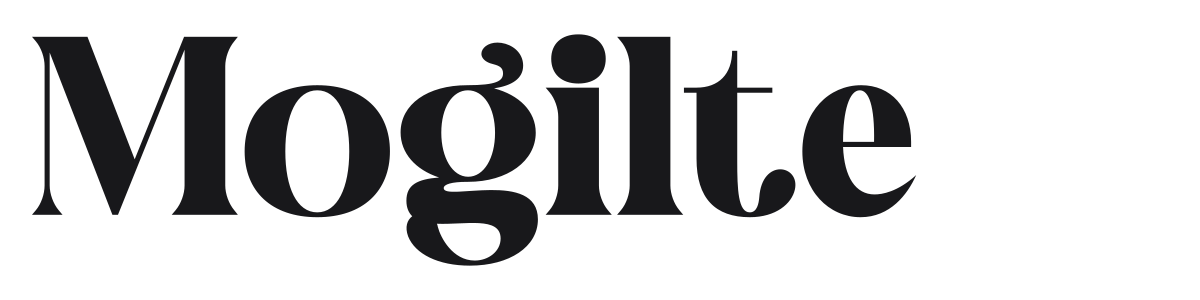
Mogilte
Mogilte is a bold modern serif with the deep stroke contrast and sharp hairline serifs of the Didone tradition. Wide proportions and pronounced ball terminals give it a confident, fashion-forward presence. The kind of type that commands attention on a magazine cover or a luxury brand's packaging.